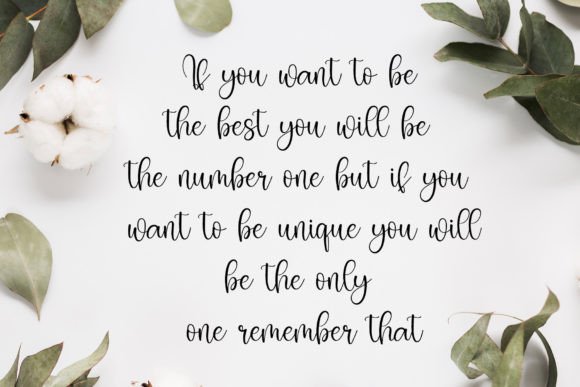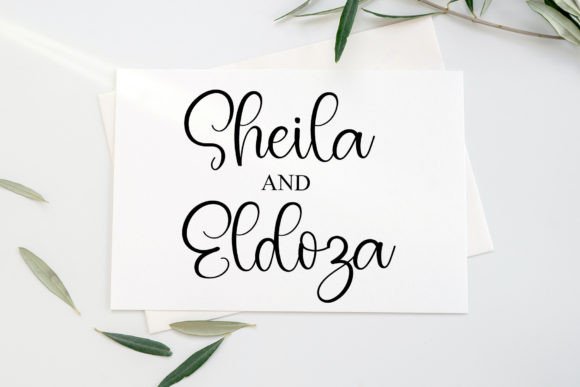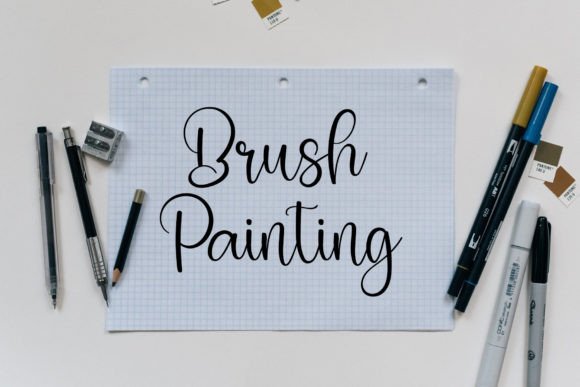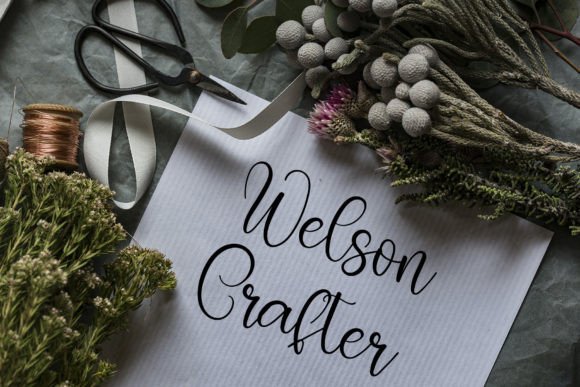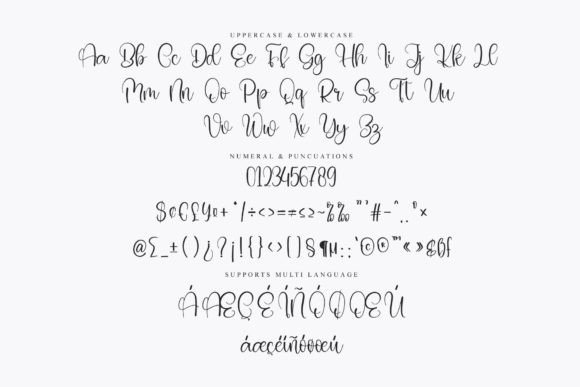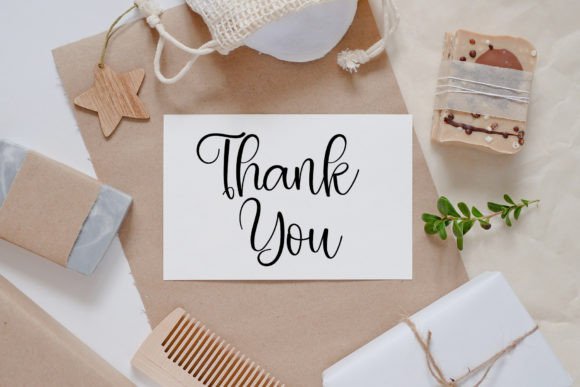
Introduction to Highest Font
Highest is a stylish handwritten font with a contemporary atmosphere and impeccable form, inspired by timeless classic calligraphy.
Balanced and varied, this font was designed to enhance the beauty of your projects .
Key Features of Highest Font